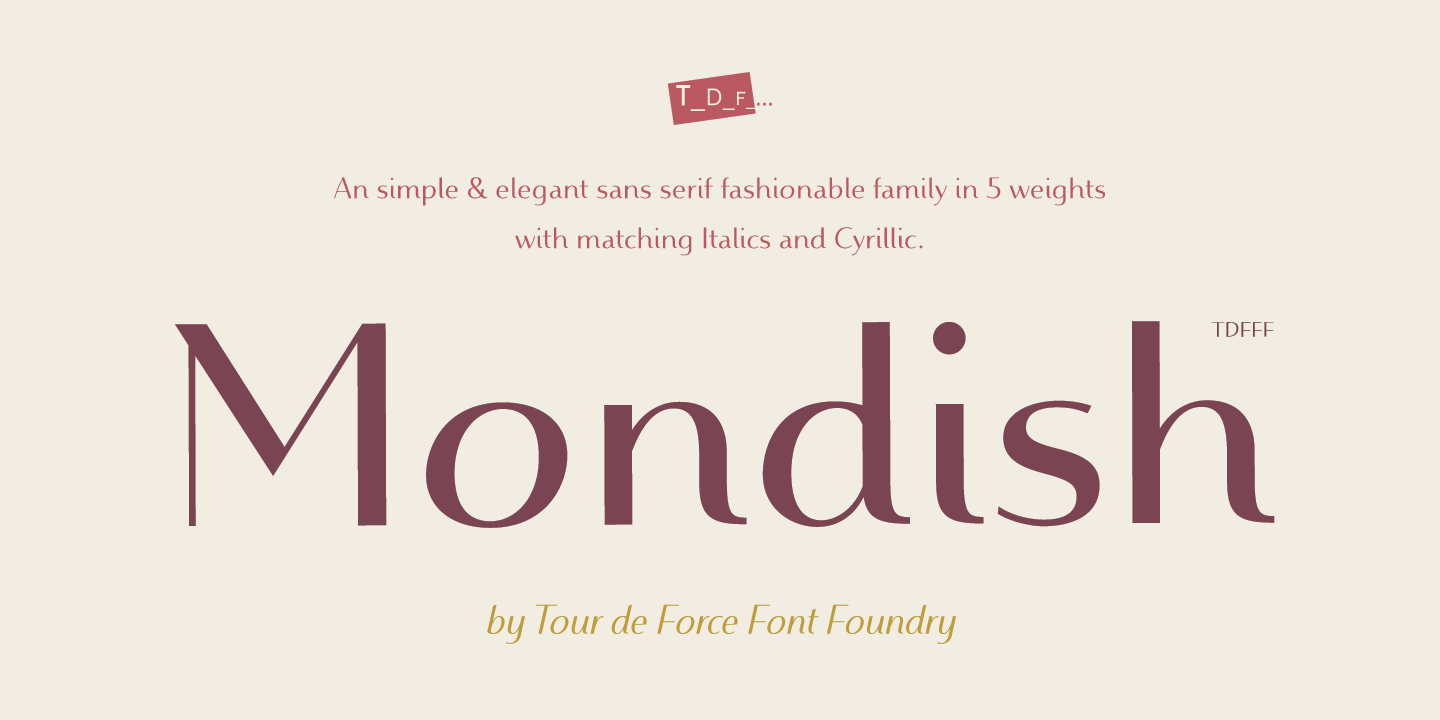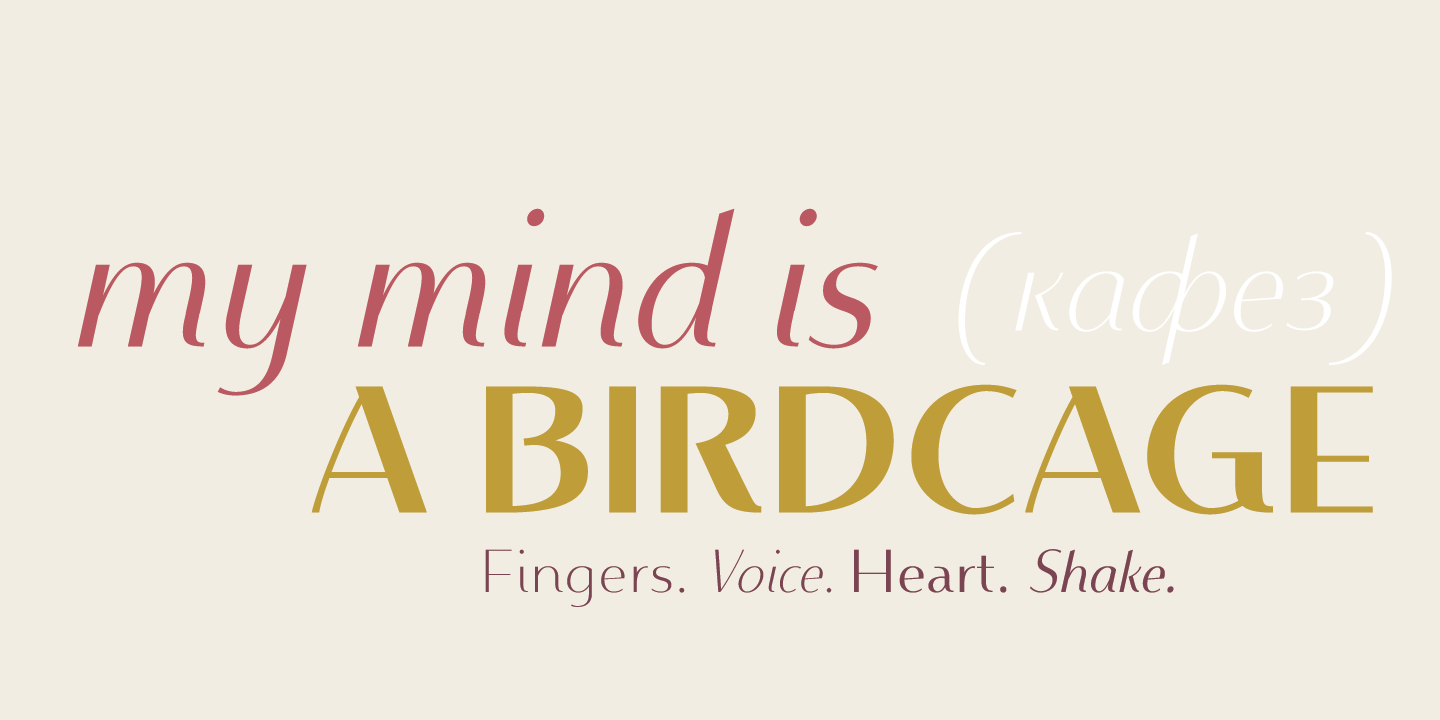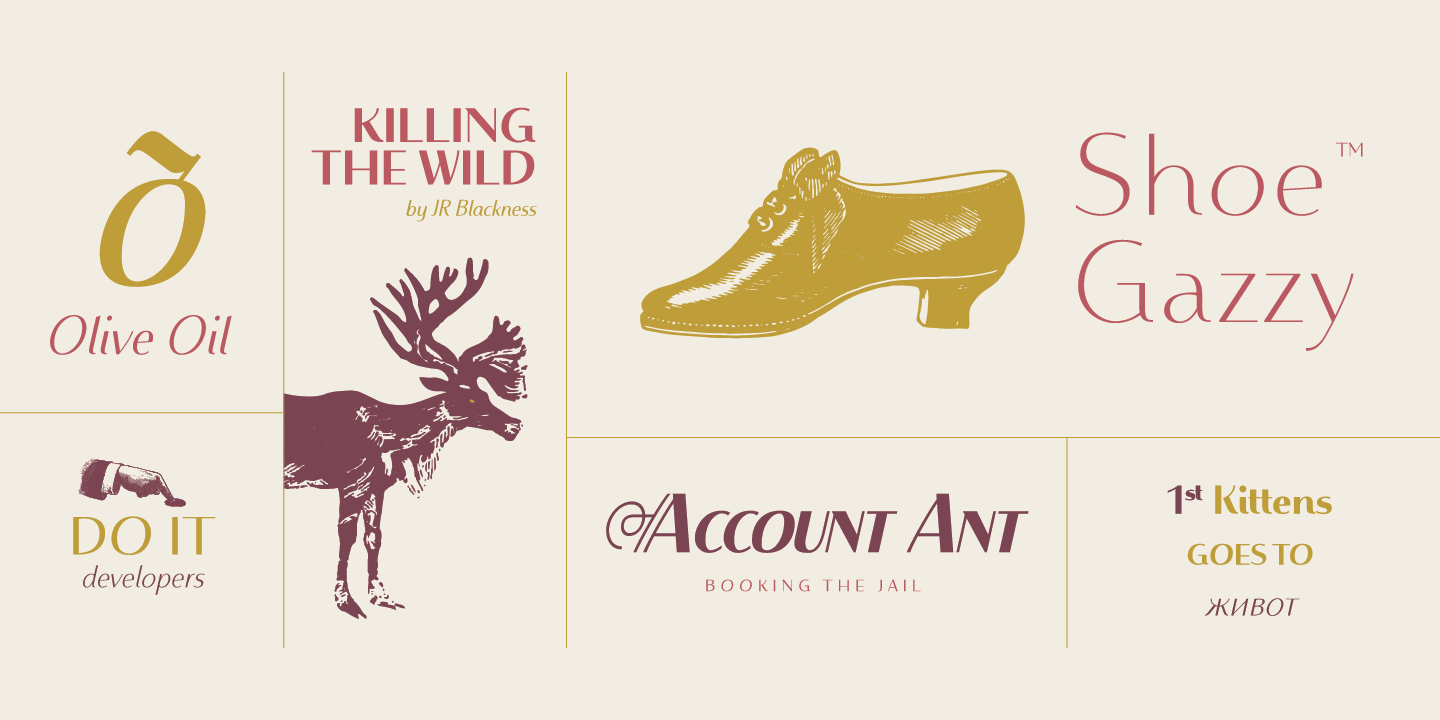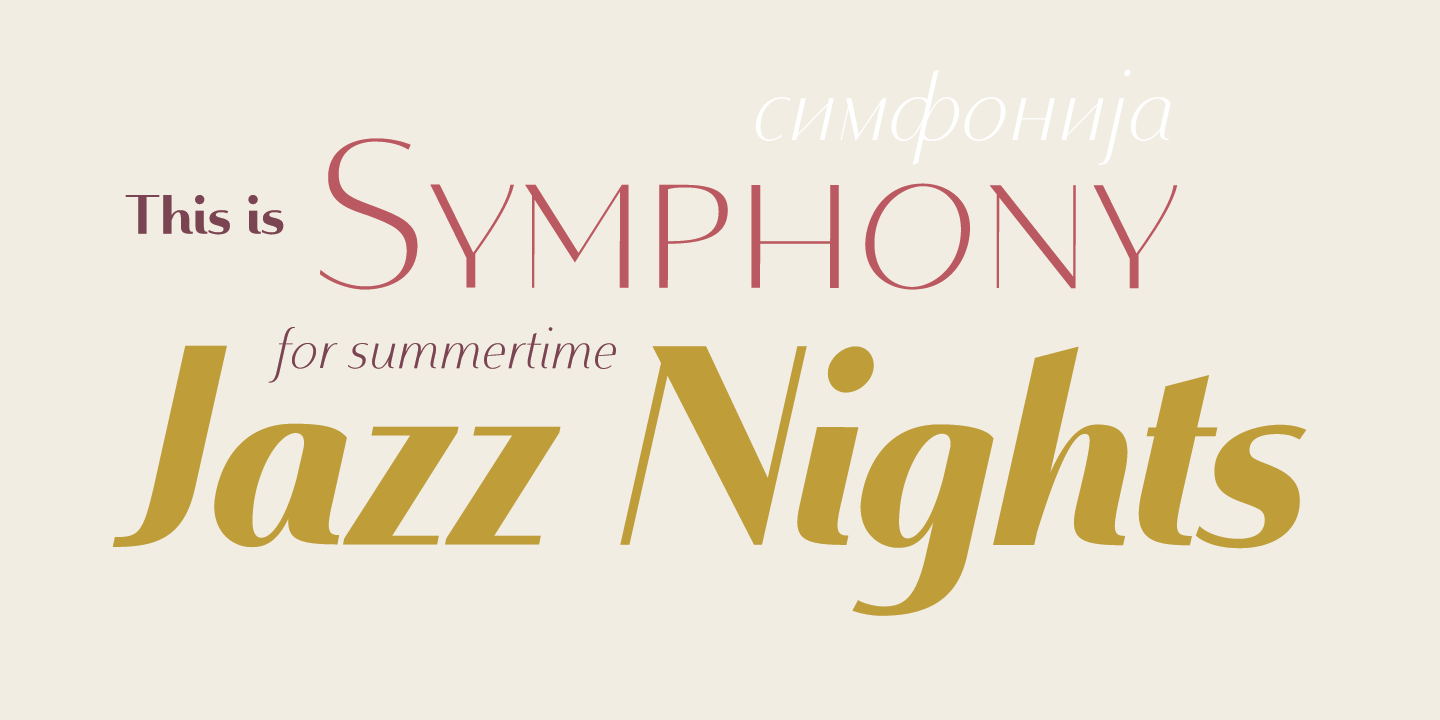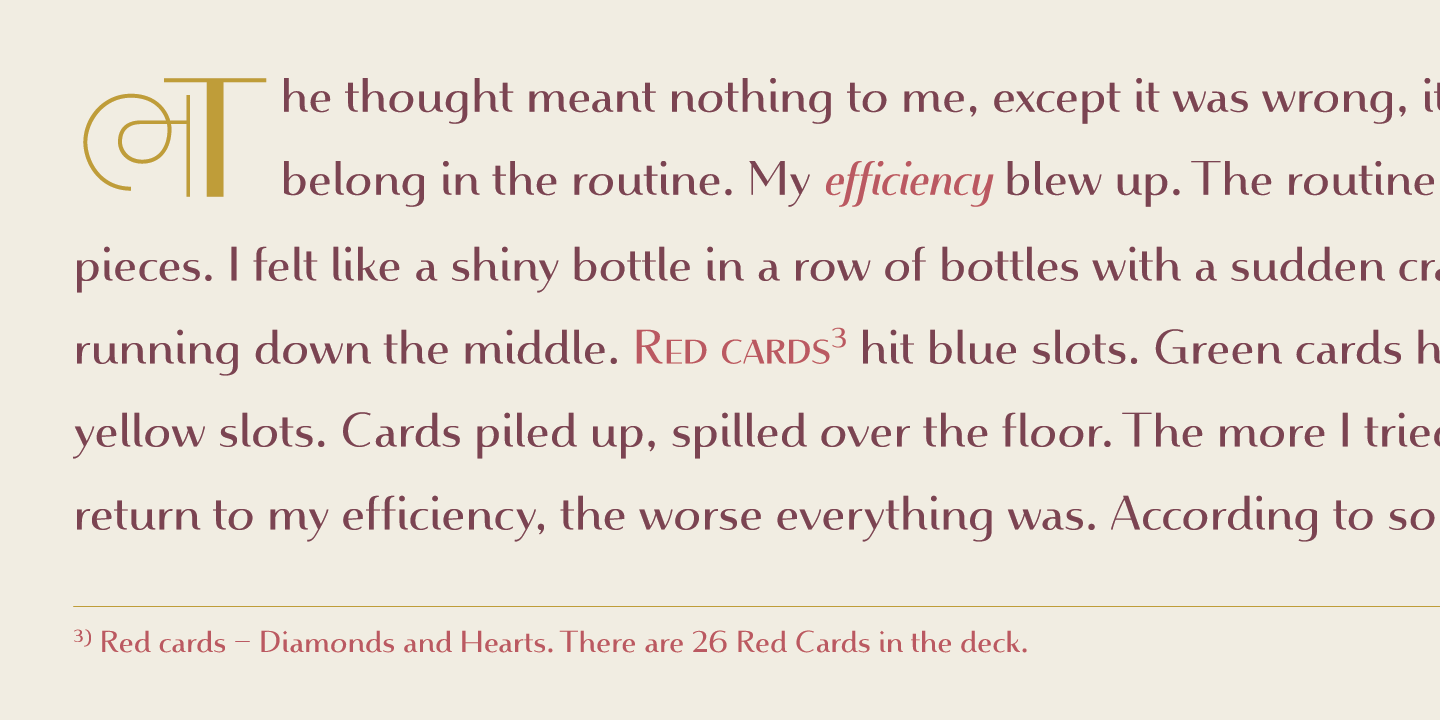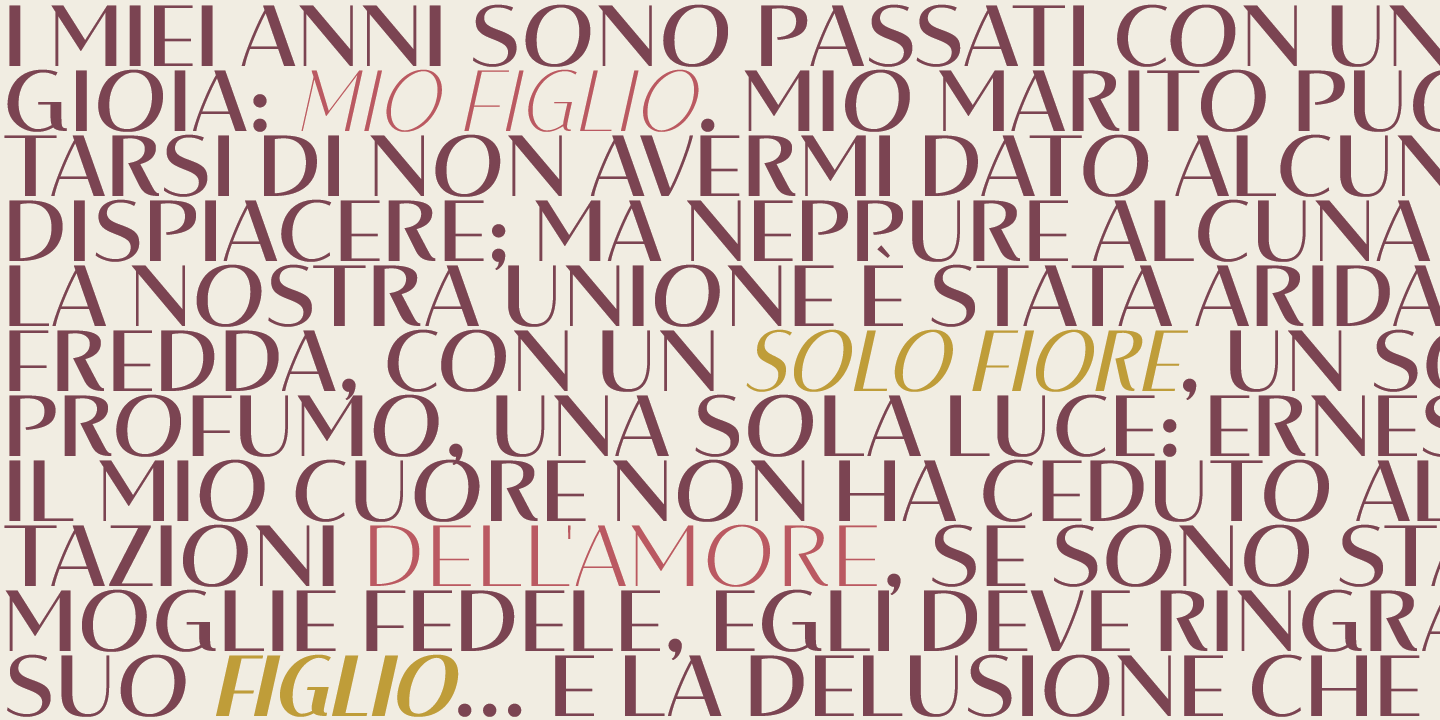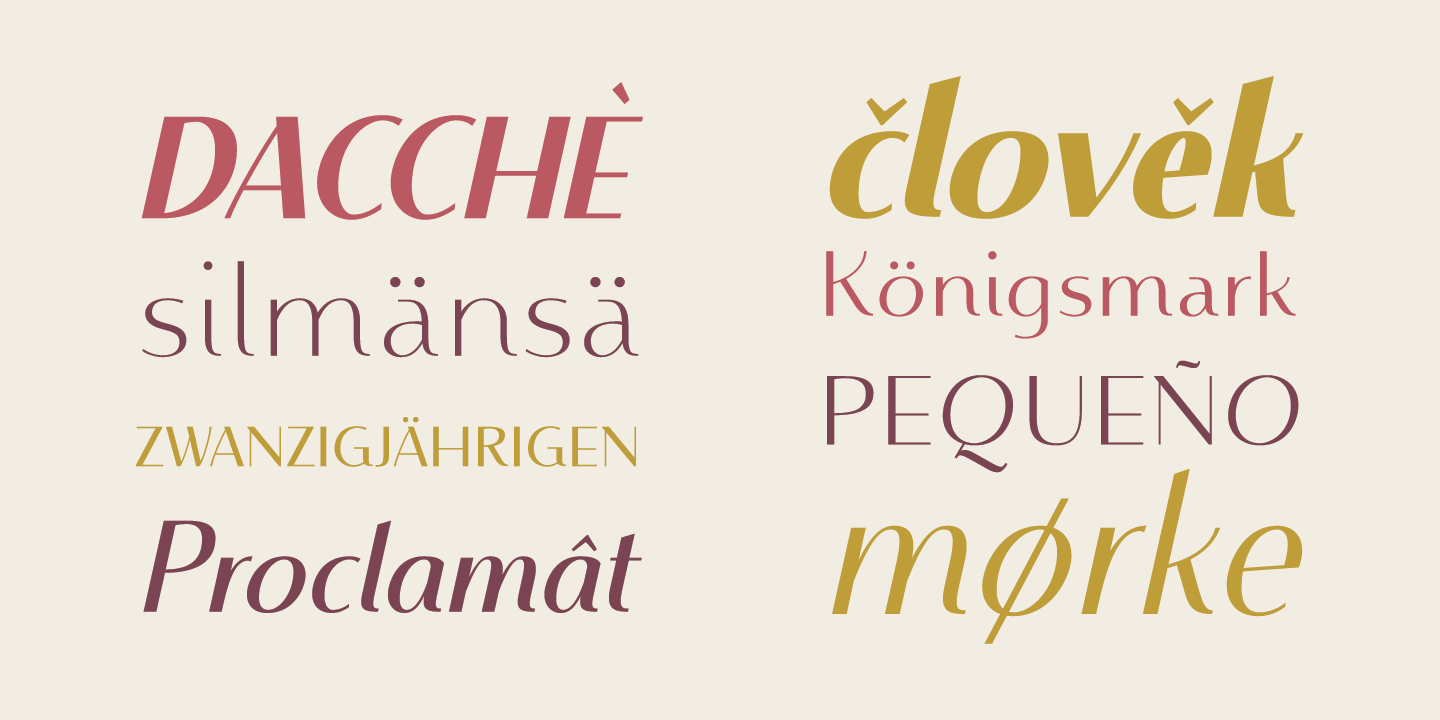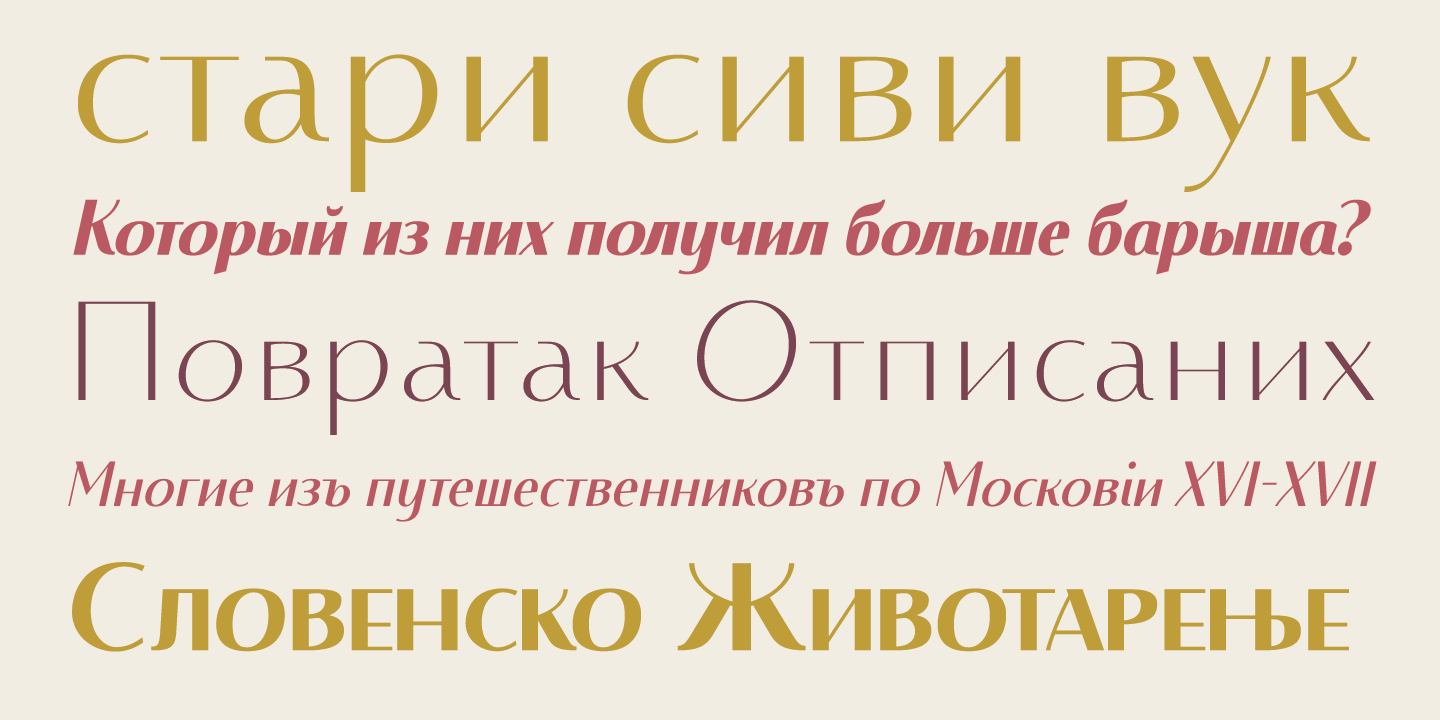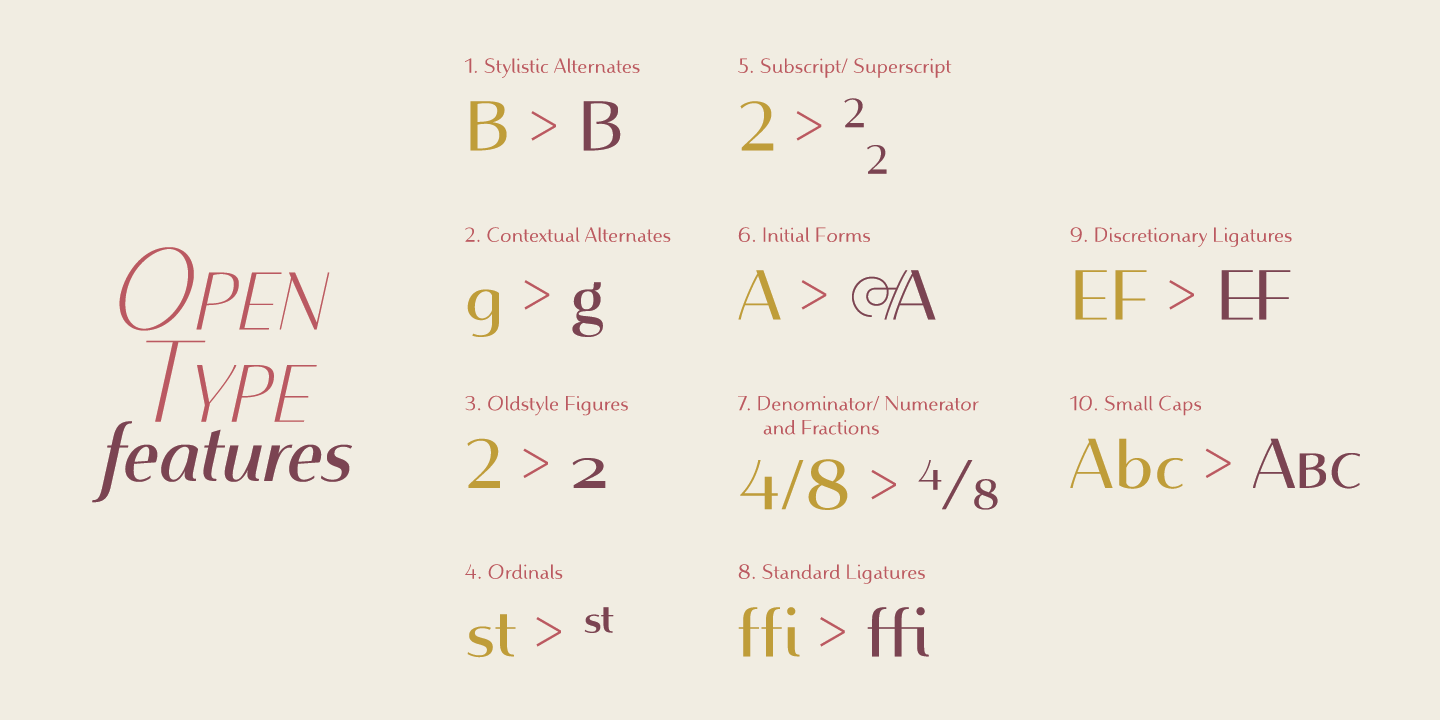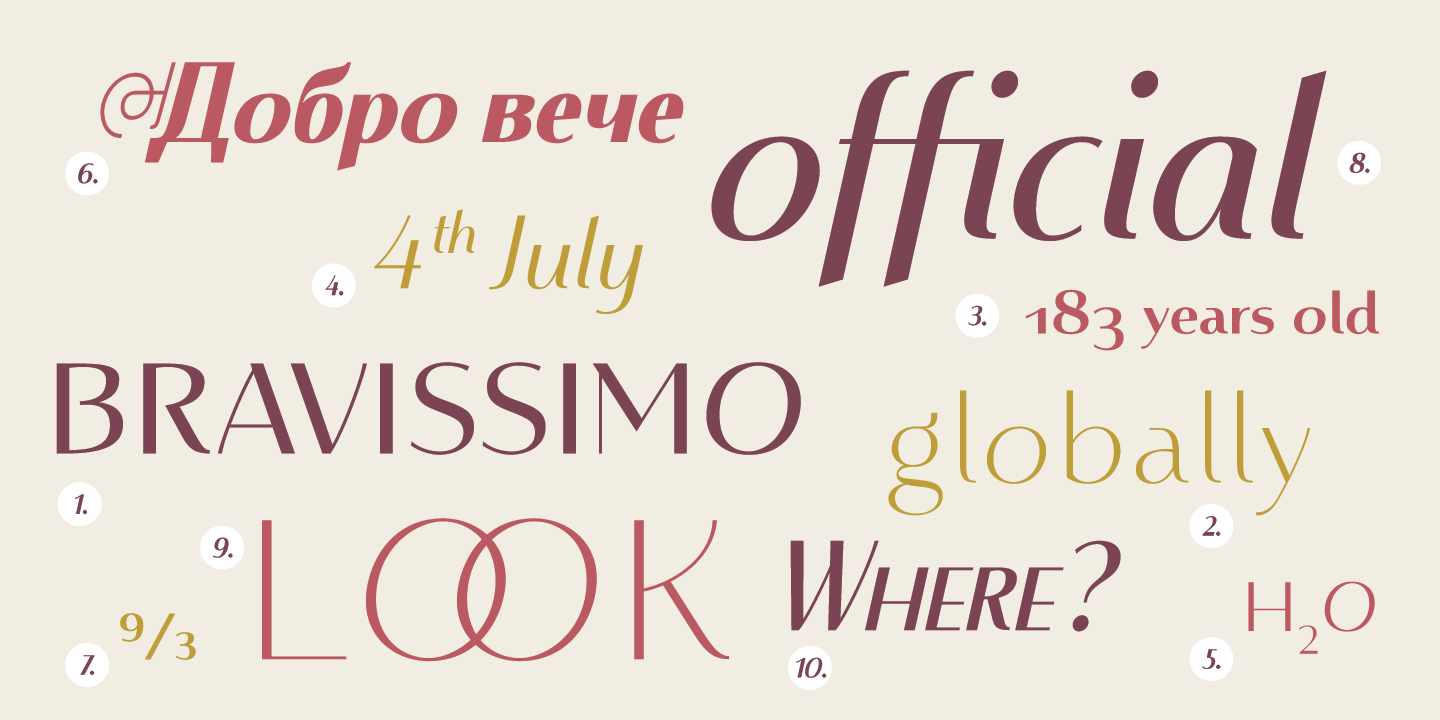
Mondish
Mondish Font Family
Designed by Dušan Jelesijević
Mondish is an elegant sans serif family that comes in five weights with matching Italics. Commonly recognized as fashionable font by its design and main purpose, Mondish is actually much more than that. Characteristic by high contrasted stems, gentle calligraphic endings of lowercase letters, slightly condensed Italics and slanted letter axis through the entire family, it leaves an impression as a designer’s charming partner for a wide variety of projects. Mondish is equipped with OpenType features such as Stylistic and Contextual Alternates, Oldstyle Figures, Ordinals, Subscript and Superscript, Initial Forms, Denominator, Numerator and Fractions with Standard and Discretionary Ligatures followed with Small Caps. Beside basic and extended Latin character set, Mondish comes with Cyrillic support. Exactly 700 glyphs in total.
OPENTYPE FEATURES
Standard Ligatures
fi fl ffi ffl
Contextual Alternates
A quivering Texas zombie fought republic linked jewelry — A QUIVERING TEXAS ZOMBIE FOUGHT REPUBLIC LINKED JEWELRY
Stylistic Alternates
Grumpy wizards make a toxic brew for the jovial queen — GRUMPY WIZARDS MAKE A TOXIC BREW FOR THE JOVIAL QUEEN
Small Capitals
Neutrons
Oldstyle Numerals
0123456789
Superscript / Subscript
H2O
Initial Forms
THE Force
Ordinals
1st 2nd 3rd 4th
Denominator
3/4
Numerator
3/4